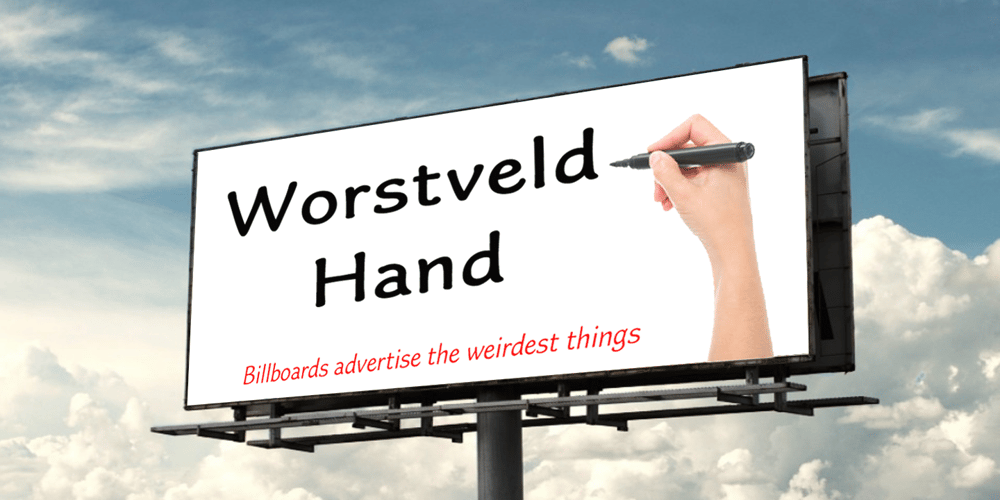
Worstveld Hand Font Family was designed by Graham Meade and published by Typotheticals. Worstveld Hand contains 12 styles and family package options. A rough hand-drawn plain sans serif that would be good for non-formal use. Do not expect a polished set of fonts from a professional, this family is hand drawn, hand spaced and hand kerned.